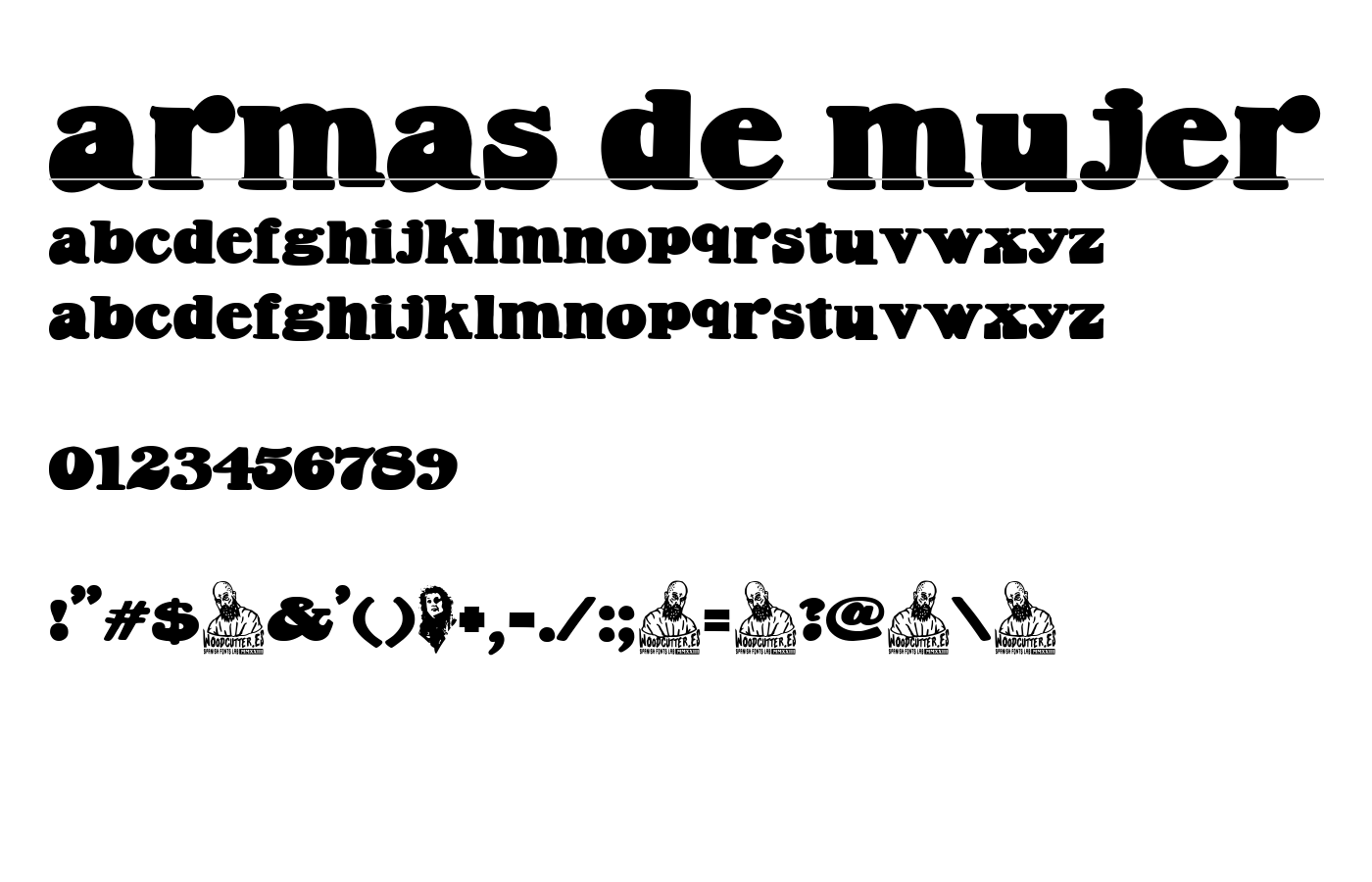
Armas de Mujer is a bold, slab serif font with a strong and playful character, featuring thick, blocky letterforms and rounded serifs that give it a friendly yet robust appearance. Its high contrast strokes and chunky weight make it a great choice for eye-catching headlines, logos, and posters where a bold, confident style is needed. This font works well for brands or designs wanting to convey strength and approachability with a touch of vintage charm.
Armas de Mujer Font
About Armas de Mujer Font